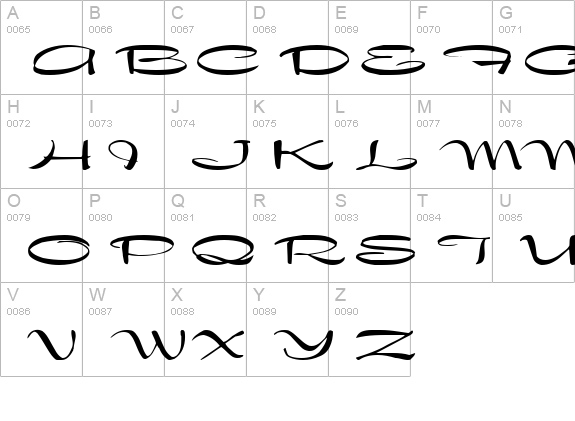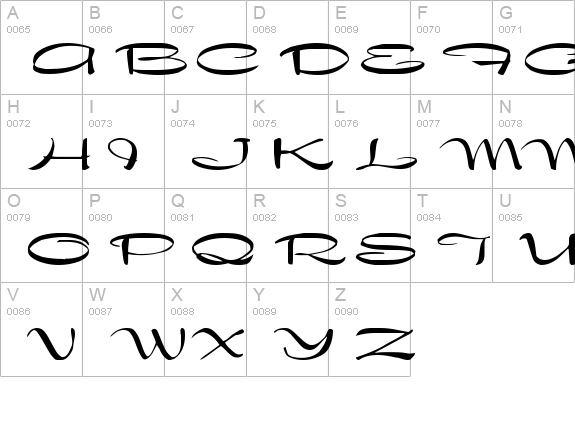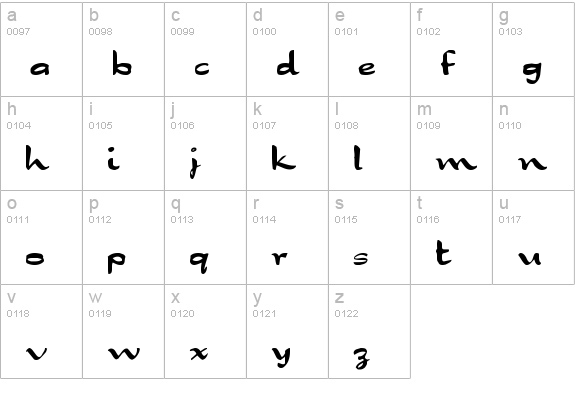
Dragonwick Regular Font Details
Dragonwick Regular is the standard, neutral variant in the Dragonwick typeface family \xE2\x80\x94 well suited to general body text, paragraphs, and standard typographic work.
Dragonwick Regular is a stylish and versatile font that exudes elegance and sophistication. Its graceful curves and clean lines make it perfect for a wide range of design projects, from invitations to branding materials. This classic typeface offers a timeless appeal that will enhance any text it is applied to. The best part is that Dragonwick Regular is available for free download at FontsMarket.com. This means you can add this exquisite font to your collection without any cost, making it a valuable resource for both personal and commercial use. Don't miss out on the opportunity to elevate your designs with the beauty of Dragonwick Regular font - download it today and unleash your creativity!